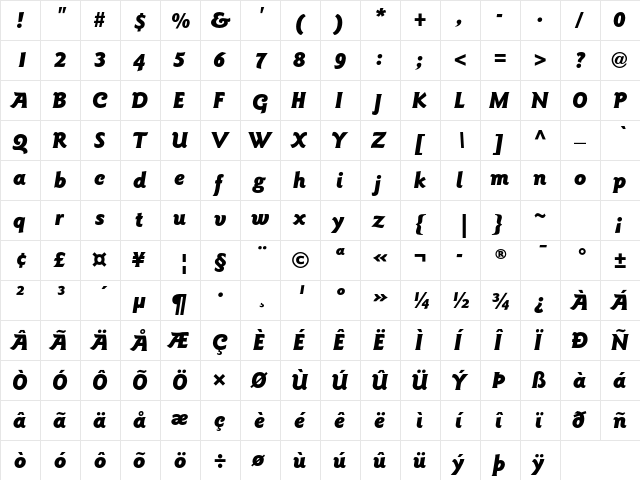
ITC Goudy Sans Pro Black Italic
| Foundry | Monotype Imaging Inc. |
| Designer | Frederic W. Goudy |
Design Context for ITC Goudy Sans Pro Typeface
ITC Goudy Sans Pro takes a measured approach to typography — its balanced proportions and neutral character make it a reliable workhorse for both digital and print work. The dynamic lean of this cut emphasises speed and emphasis in any layout.
Pro Tip: Use ITC Goudy Sans Pro for emphasis, pull quotes, and subheadings where its slanted energy can add rhythm to the layout.